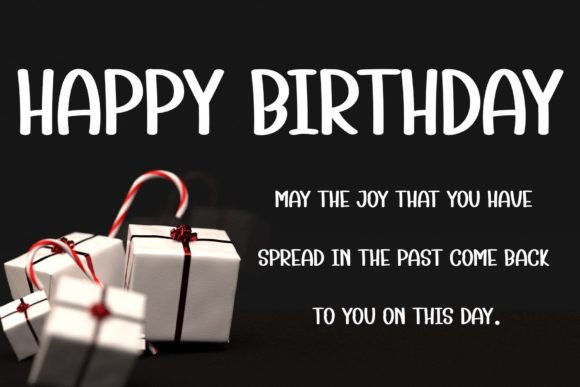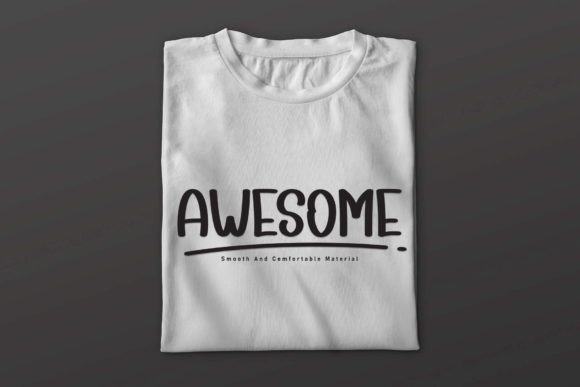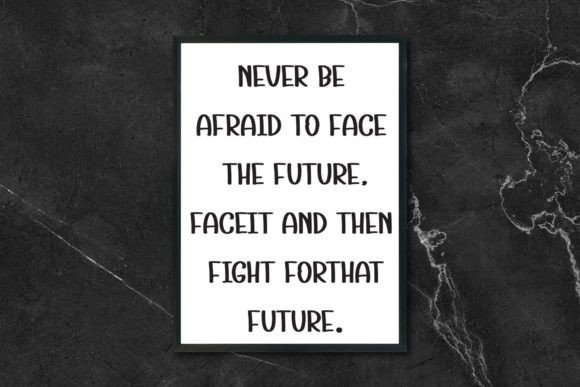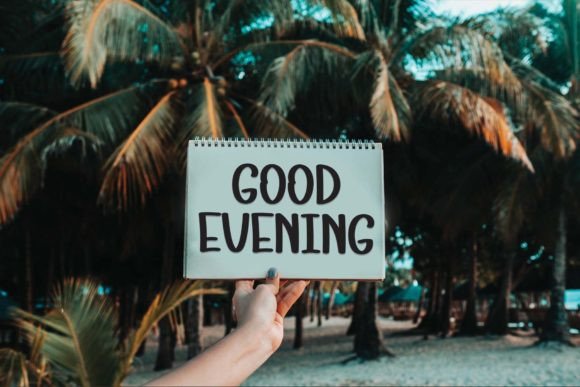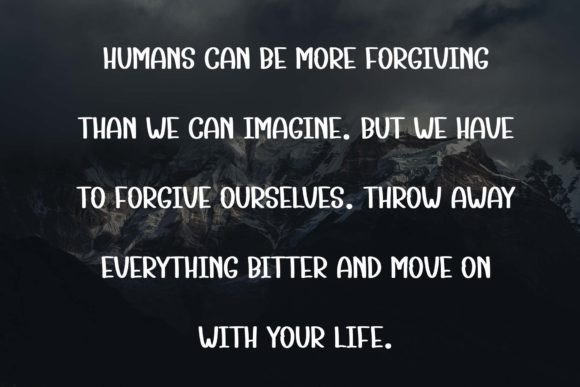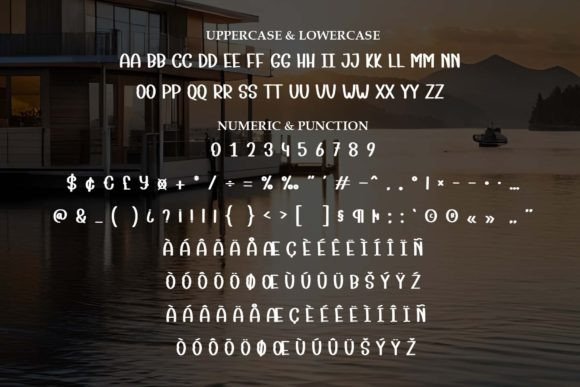
Introduction to Lakehouse Font
Lakehouse is a cool and casual handwritten font.
Its versatile look will all your designs that require a relaxed vibe .
Key Features of Lakehouse Font